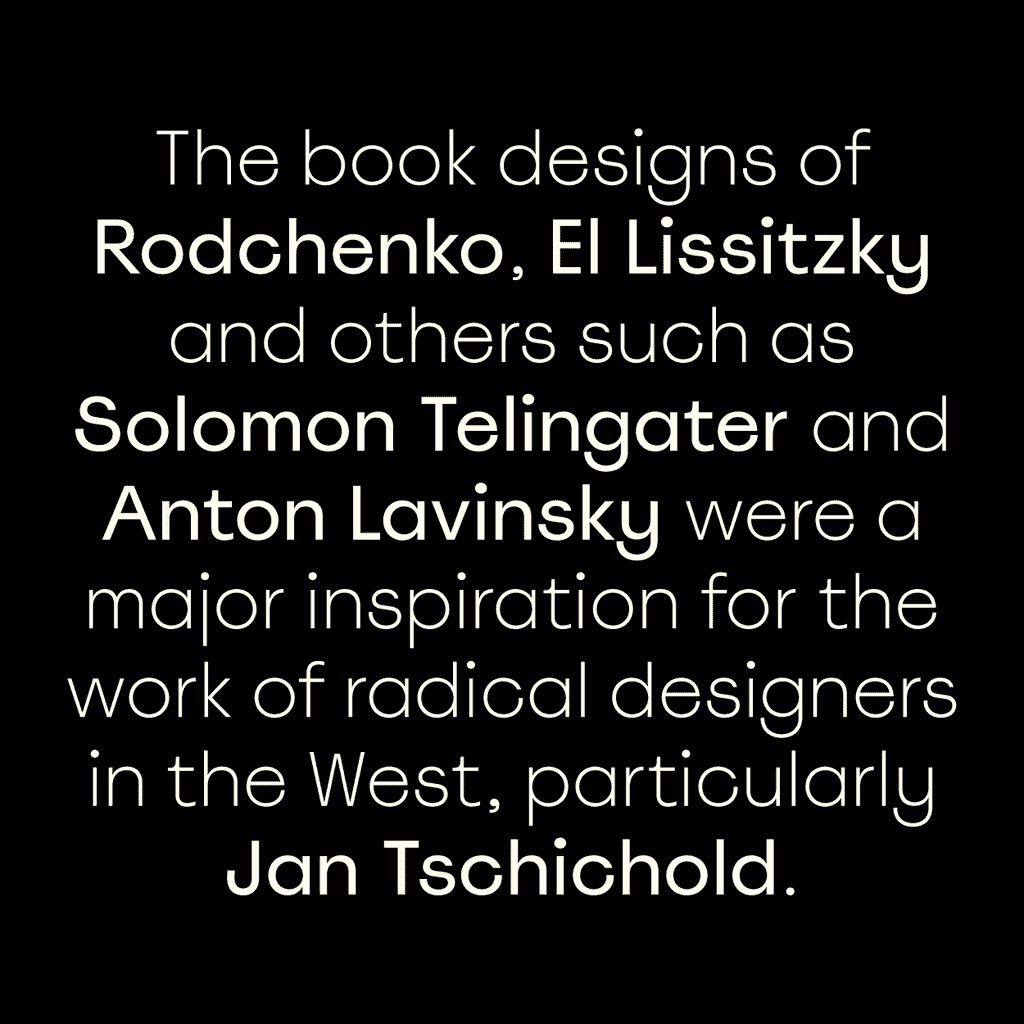
Spoof Font Family
Spoof Sans Serif Font is a geometric sans serif font that takes cues from rationalist predecessors like Futura, Neuzeit Grotesk and Avant-Garde, whilst subverting your usual geometric sans style through its exaggerated proportions and grotesque elements.
Strict geometry and orthogonal terminals create the illusion of calm uniformity. However, this illusion is quickly broken by uncomfortably tight apertures, some unbalanced forms and an ungainly underbite in the open-bowled glyphs; all of which undermine the feeling of precision to create a gawkish, intriguing look.